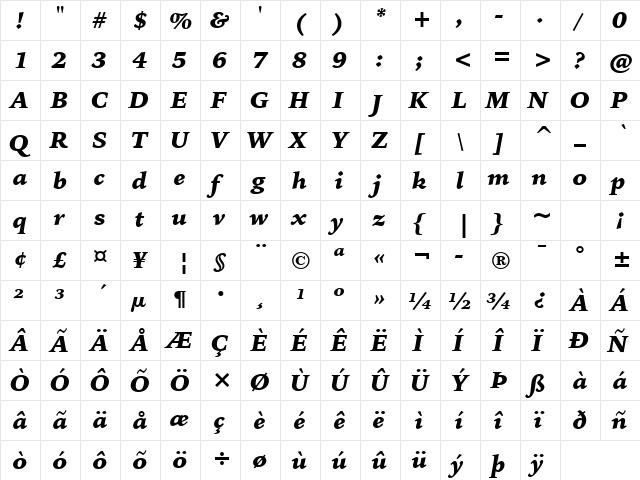
IowanOldSt Blk BT Black Italic
Design Context for IowanOldSt Blk BT Typeface
IowanOldSt Blk BT takes a measured approach to typography — its balanced proportions and neutral character make it a reliable workhorse for both digital and print work. Its italic angle brings a sense of urgency and motion to the letterforms.
Pro Tip: Use IowanOldSt Blk BT for emphasis, pull quotes, and subheadings where its slanted energy can add rhythm to the layout.